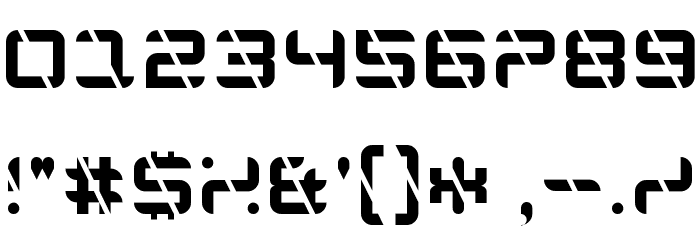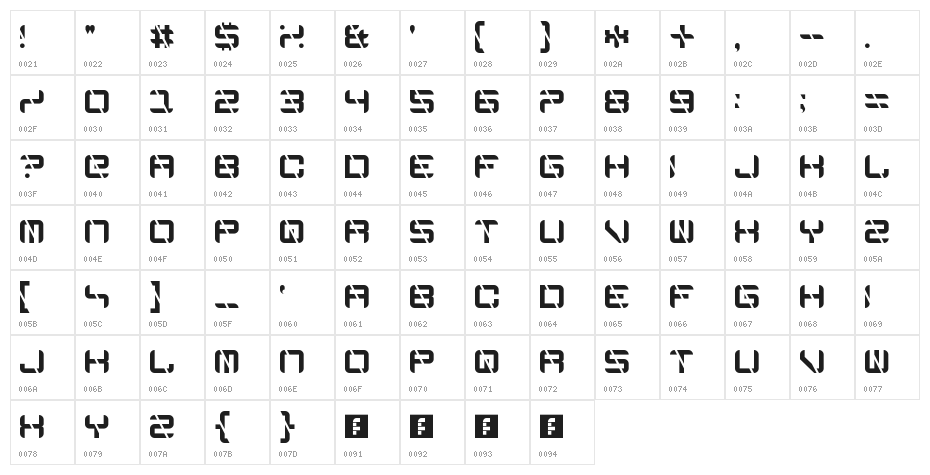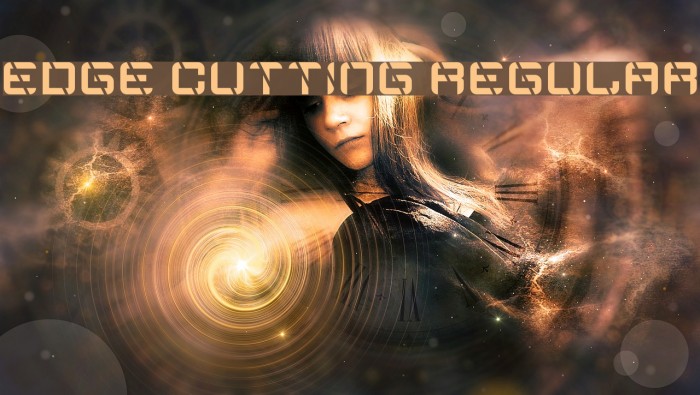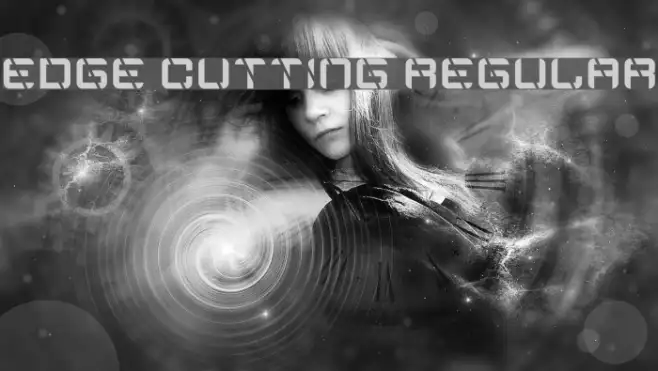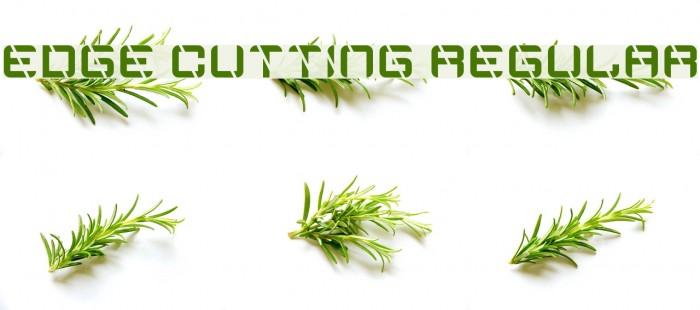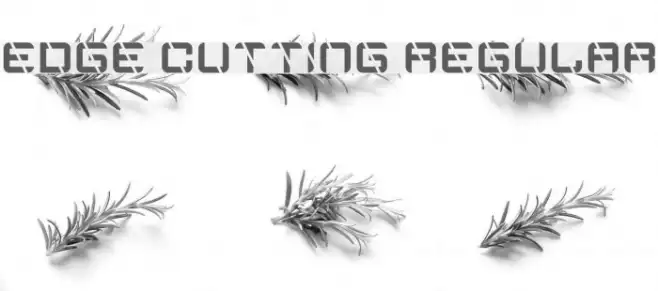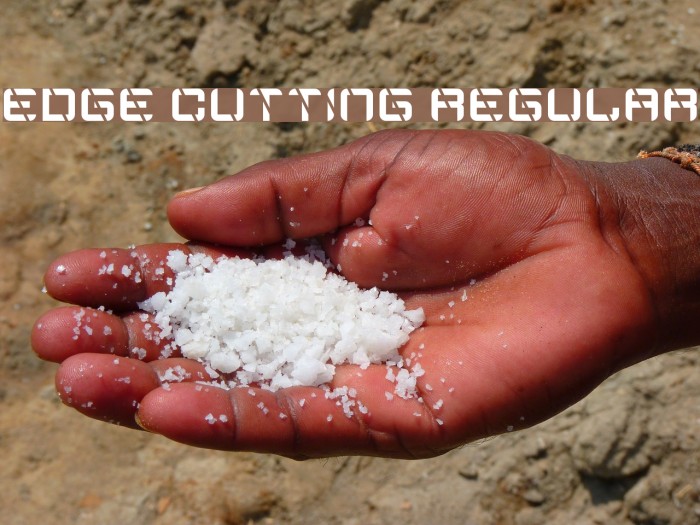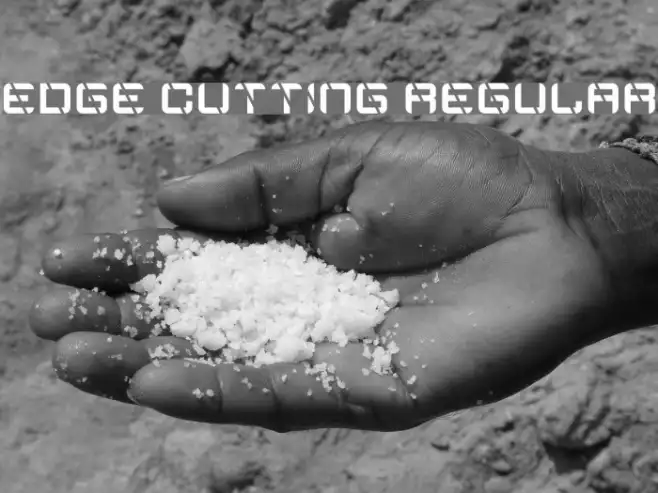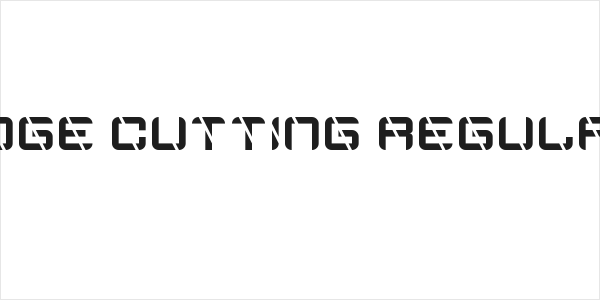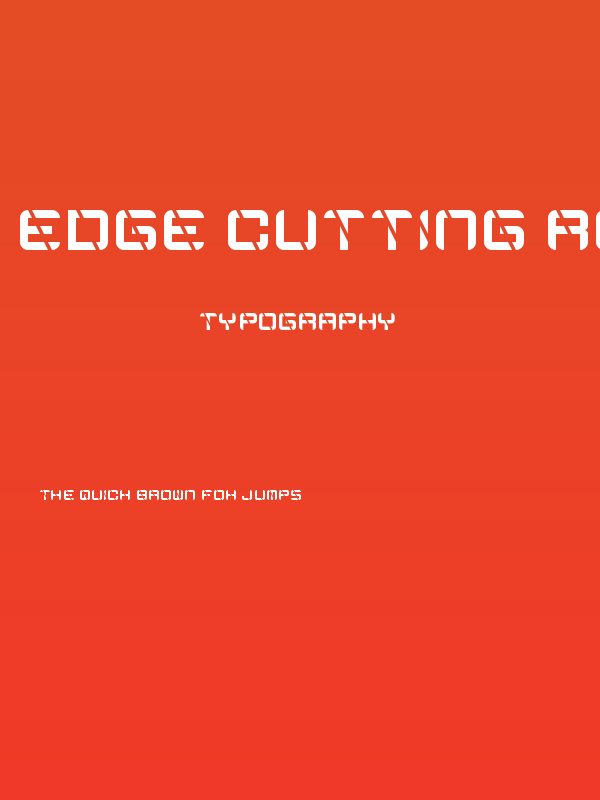
Edge Cutting Regular Font
Edge Cutting Regular Description
This font features a bold, geometric design with a futuristic and industrial feel. The characters are constructed with sharp, angular cuts and negative spaces that create a stencil-like appearance. The uppercase and lowercase letters maintain a consistent style, emphasizing a modern and edgy aesthetic. The numbers and special characters follow the same design principles, ensuring uniformity across the font. Its unique style makes it stand out, suitable for projects that require a strong visual impact.